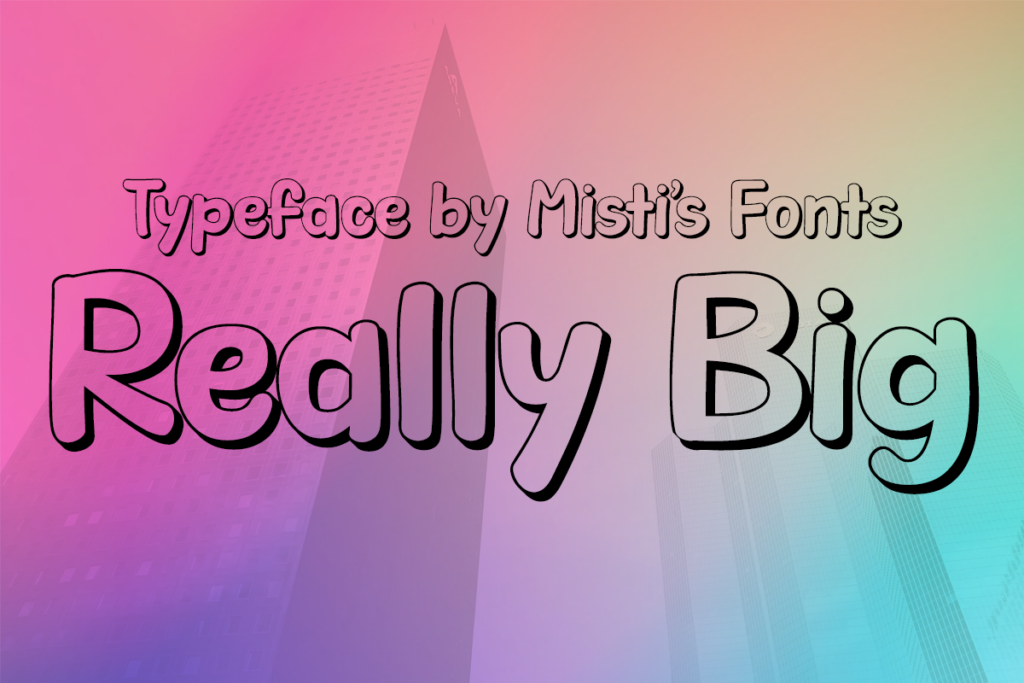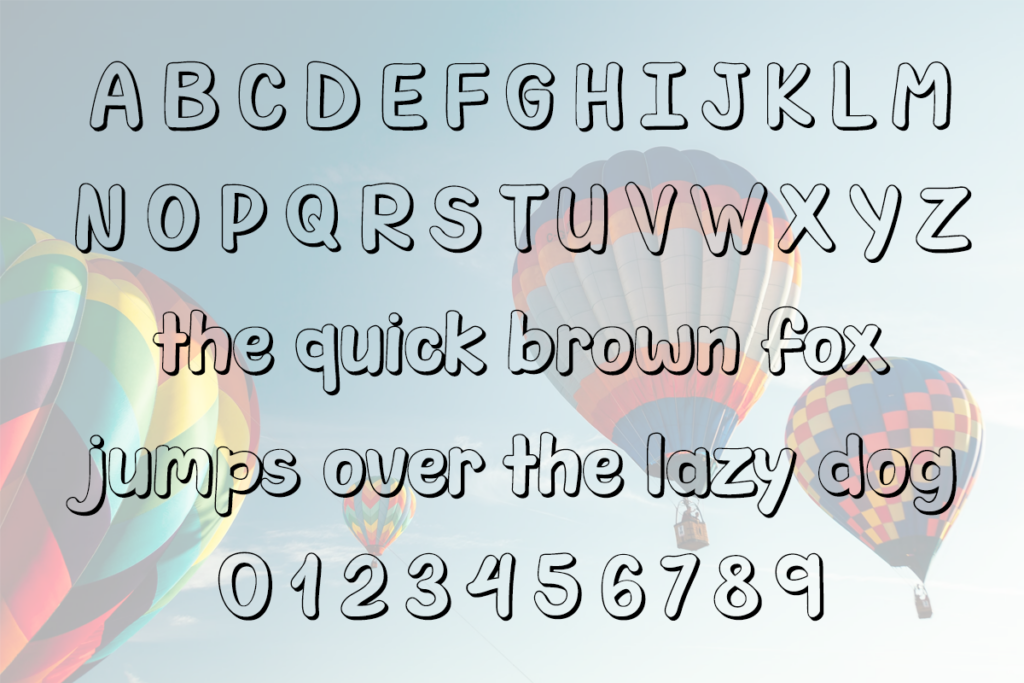
Introducing Really Big – a vivaciously bold font imbued with a playful outline and dynamic drop shadow. This uniquely cartoon-inspired typeface ensures every phrase bursts off the page, making it an ideal choice for captivating headings, impactful posters, and designs that exude delight. Infuse your projects with an irresistible energy and distinctive personality, and let your words not merely speak, but truly roar with style.